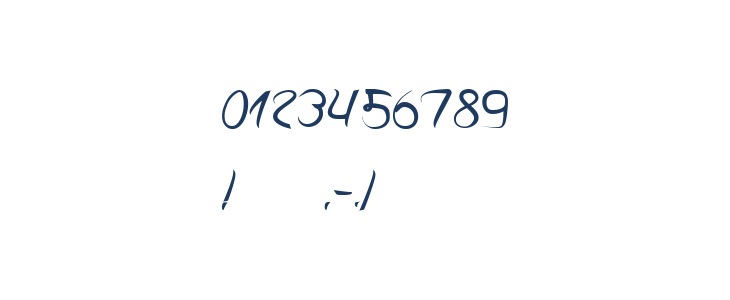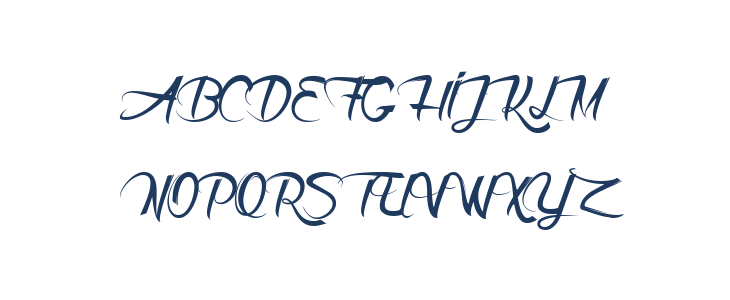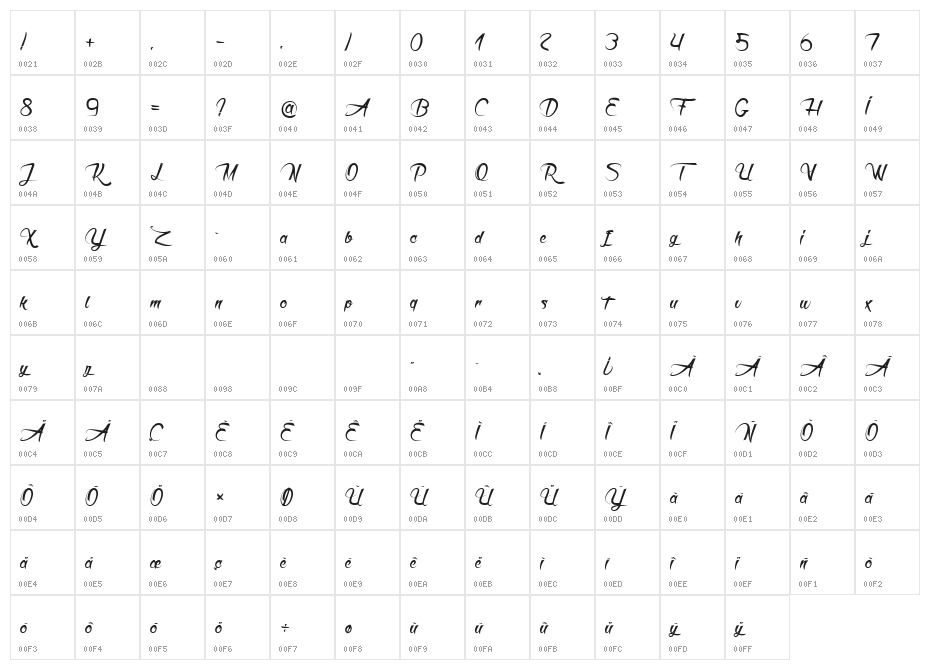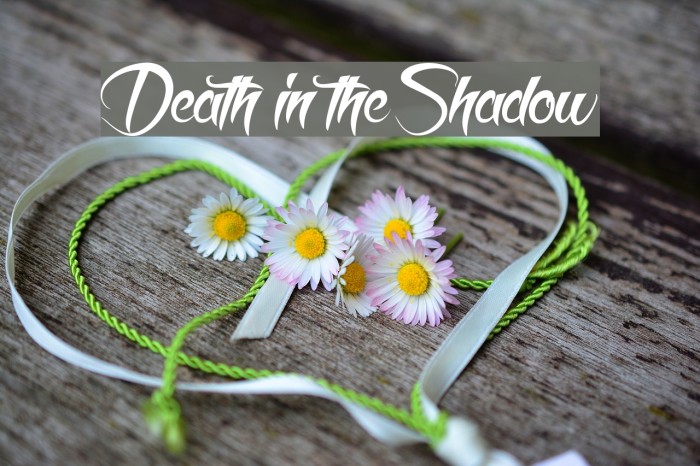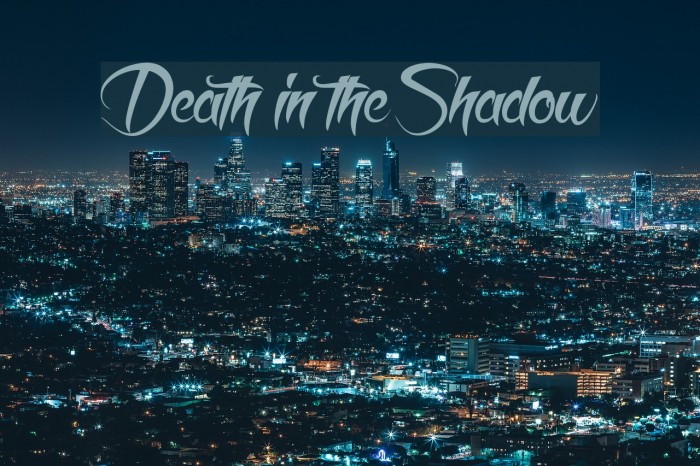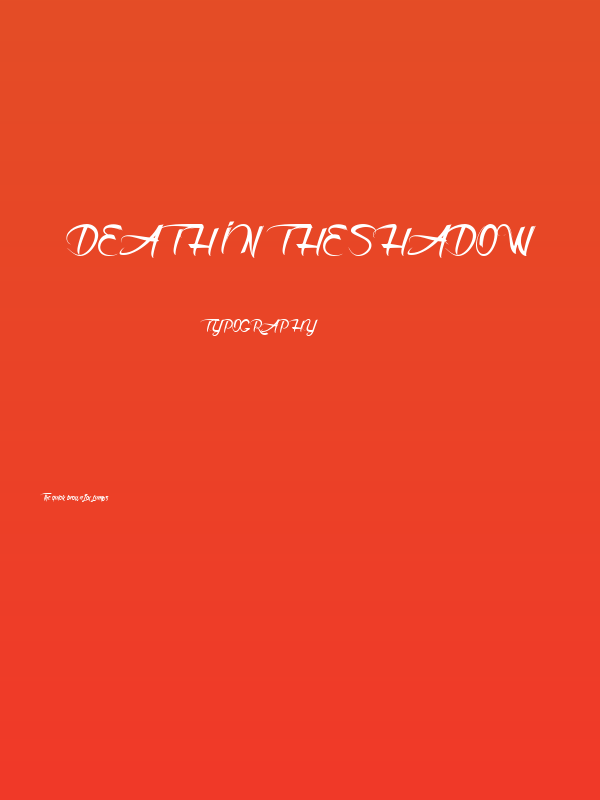
Death in the Shadow Font
Death in the Shadow Description
This font exudes a dramatic and artistic flair, characterized by its sweeping, cursive strokes and elegant curves. The uppercase letters are bold and expressive, with a distinctive flair that adds a sense of movement and dynamism. The lowercase letters maintain a consistent style, with intricate loops and swashes that enhance its decorative appeal. The numerals are equally stylized, featuring unique curves that align with the overall aesthetic. Special characters are crafted with the same attention to detail, making them seamlessly integrate with the rest of the typeface. This font is ideal for projects that require a touch of sophistication and artistic expression.
| Proposed Projects | Ideal for wedding invitations, luxury branding, artistic posters, and elegant packaging designs. |
| Author | Fonts by Maelle.K - Thomas Boucherie |